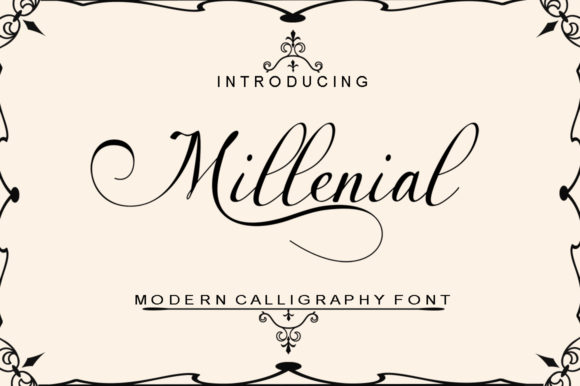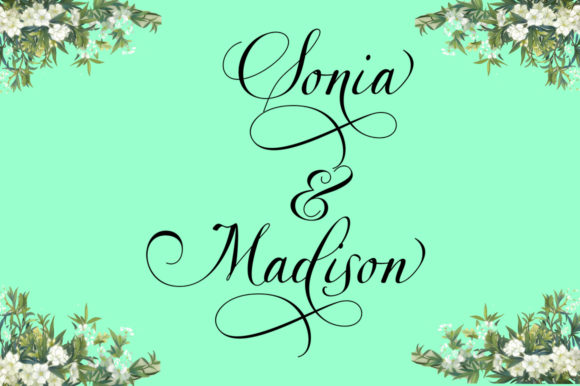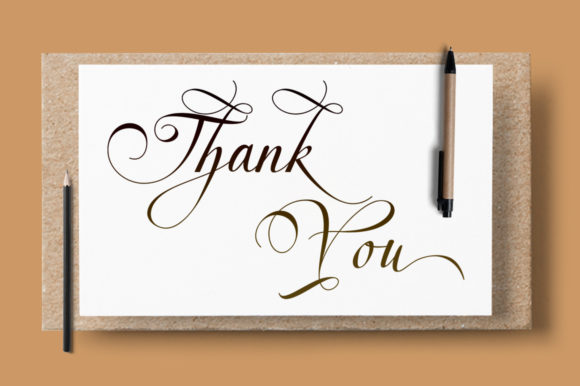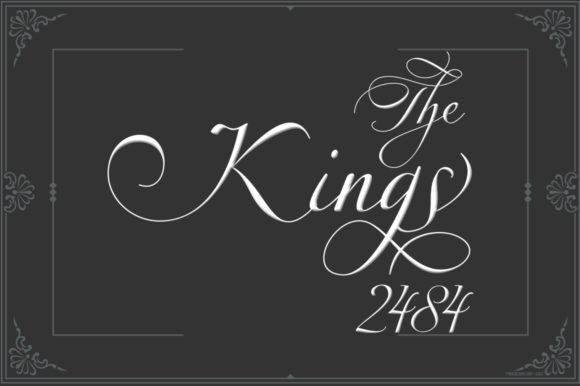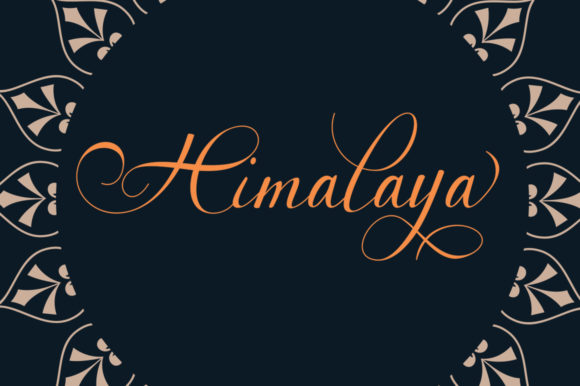
About Millenial Script Font
The Millenial is a modern calligraphy font. It has an irregular baseline and is perfect for adding a trendy and feminine style to your wedding invitations, thank you cards, quotes, greeting cards, logos, business cards and more.